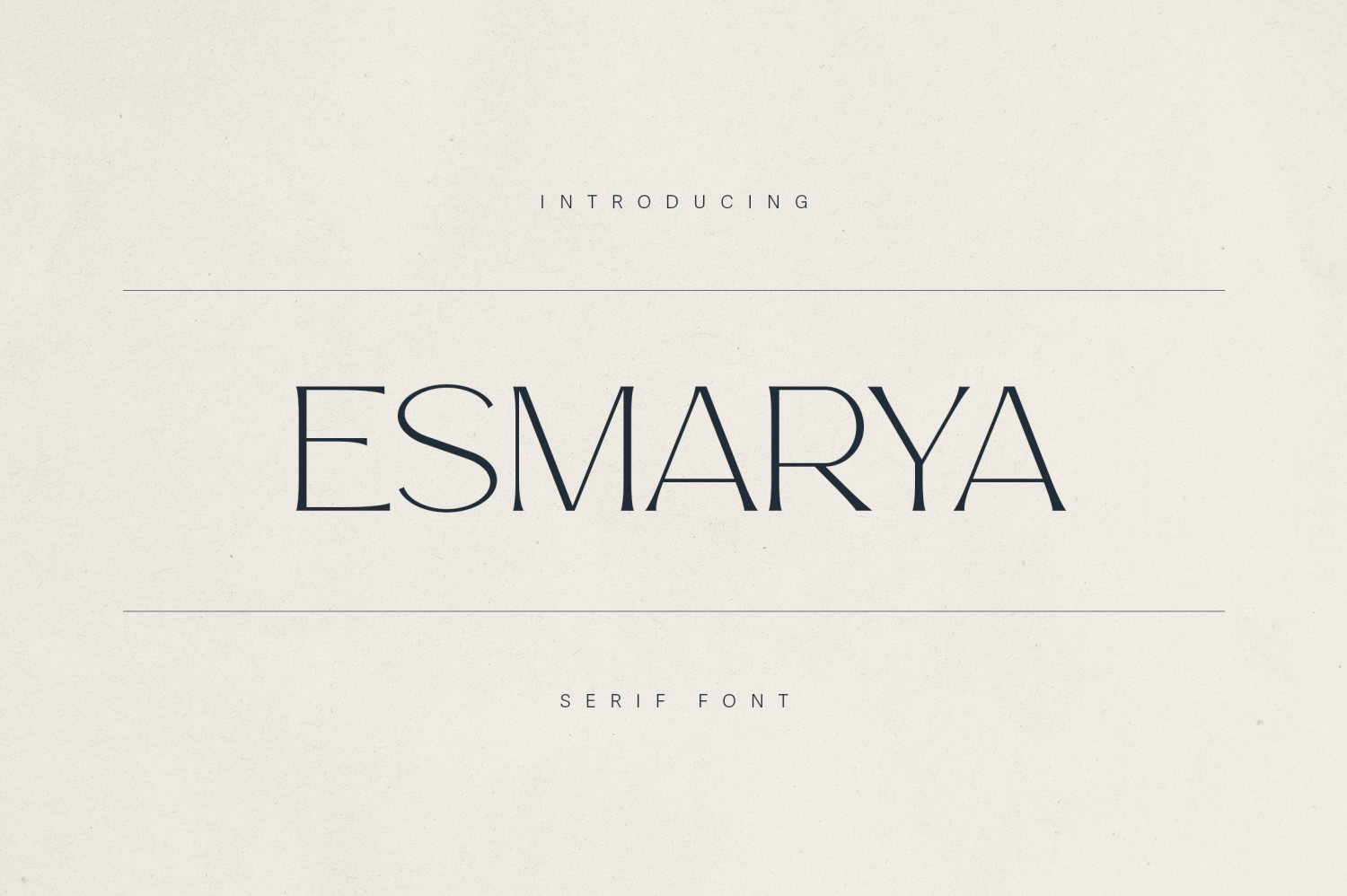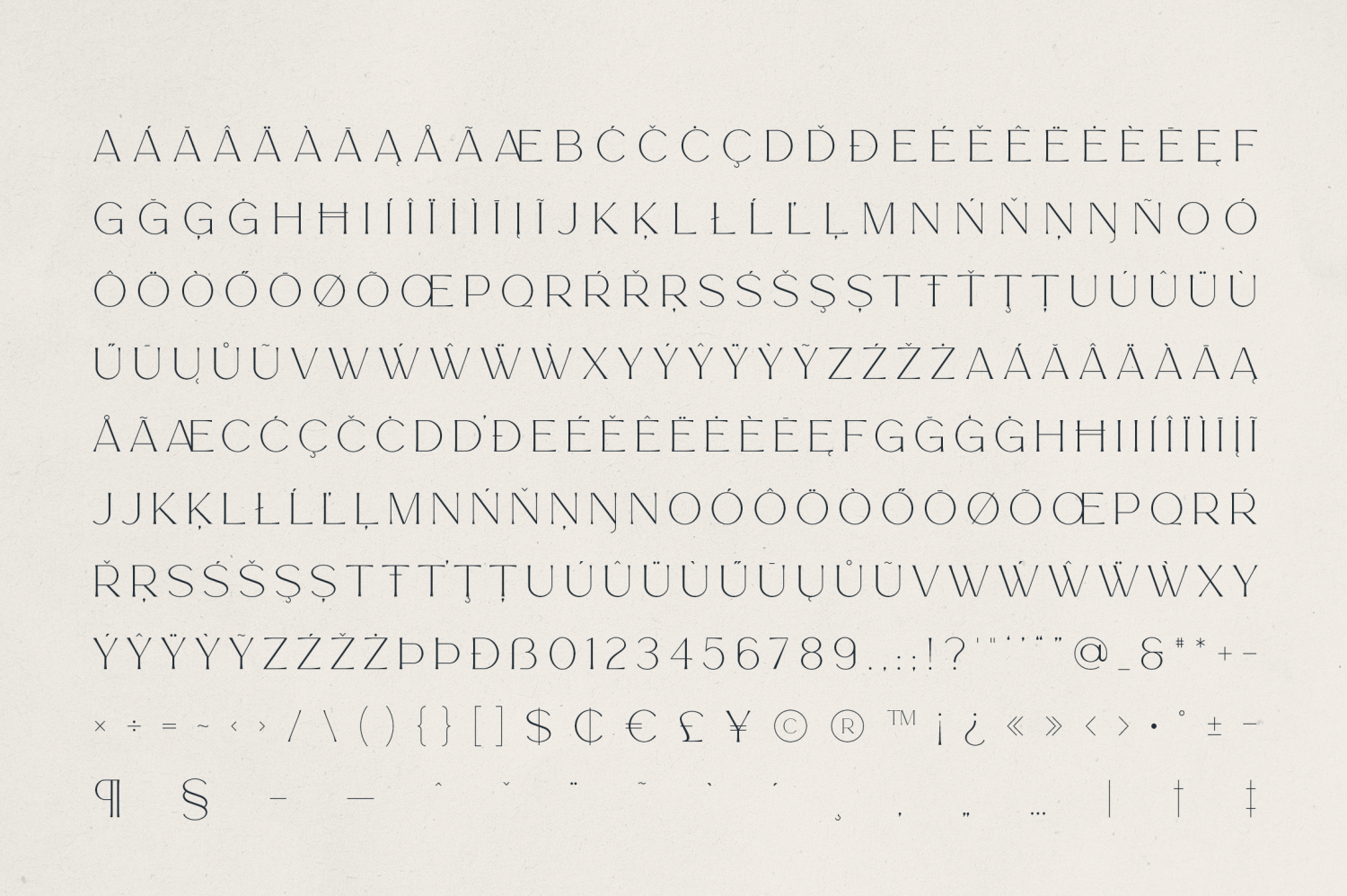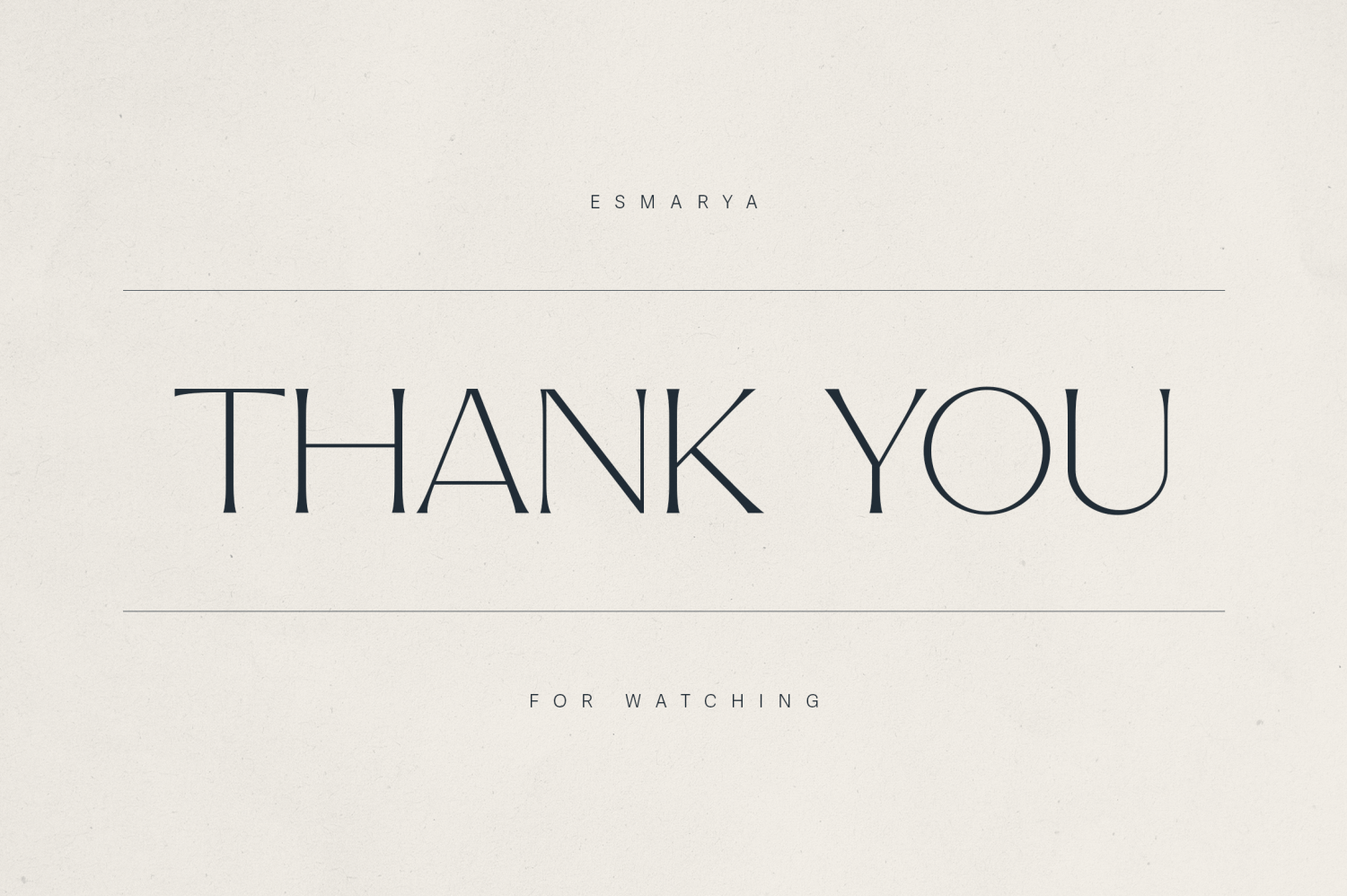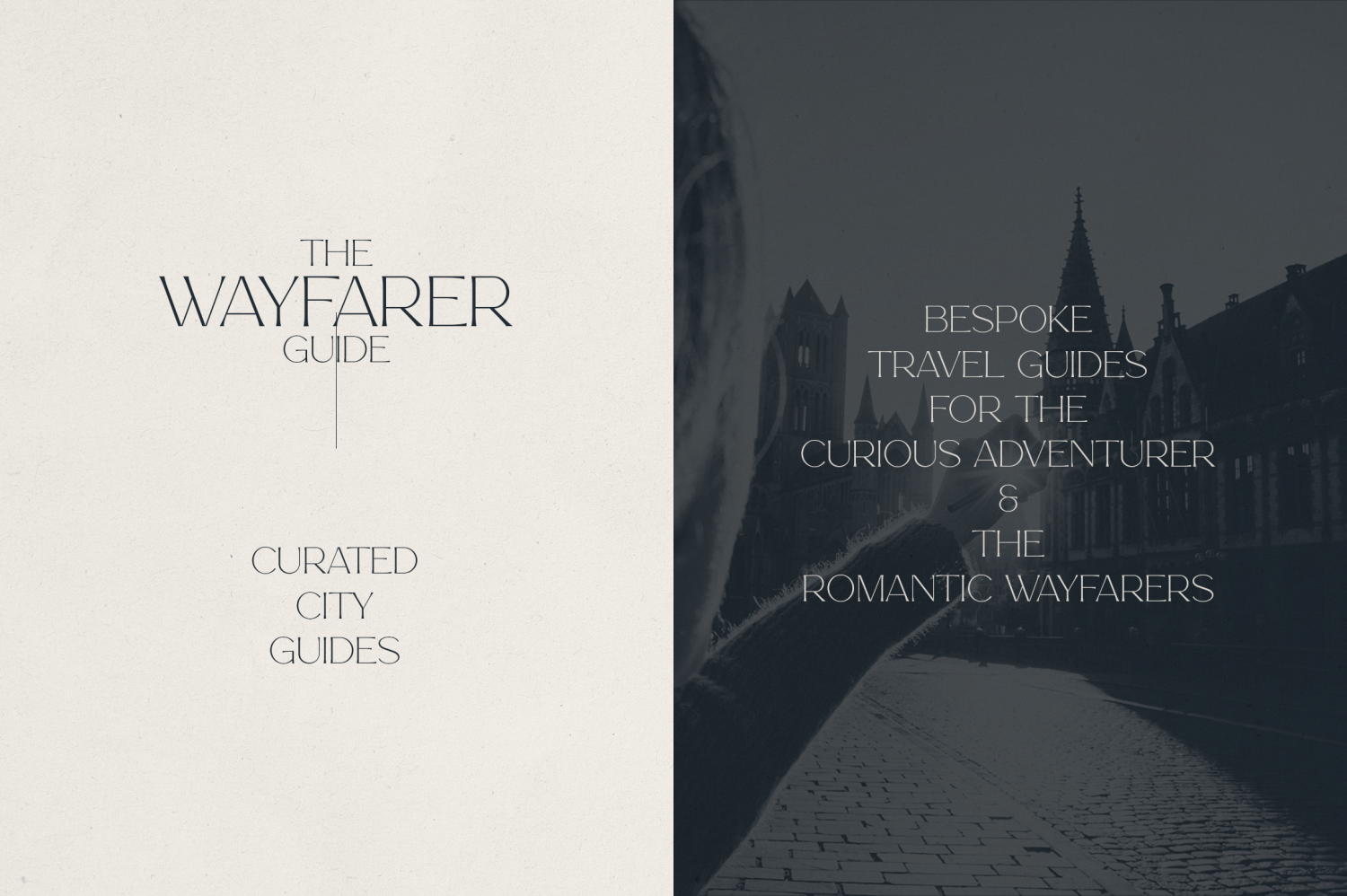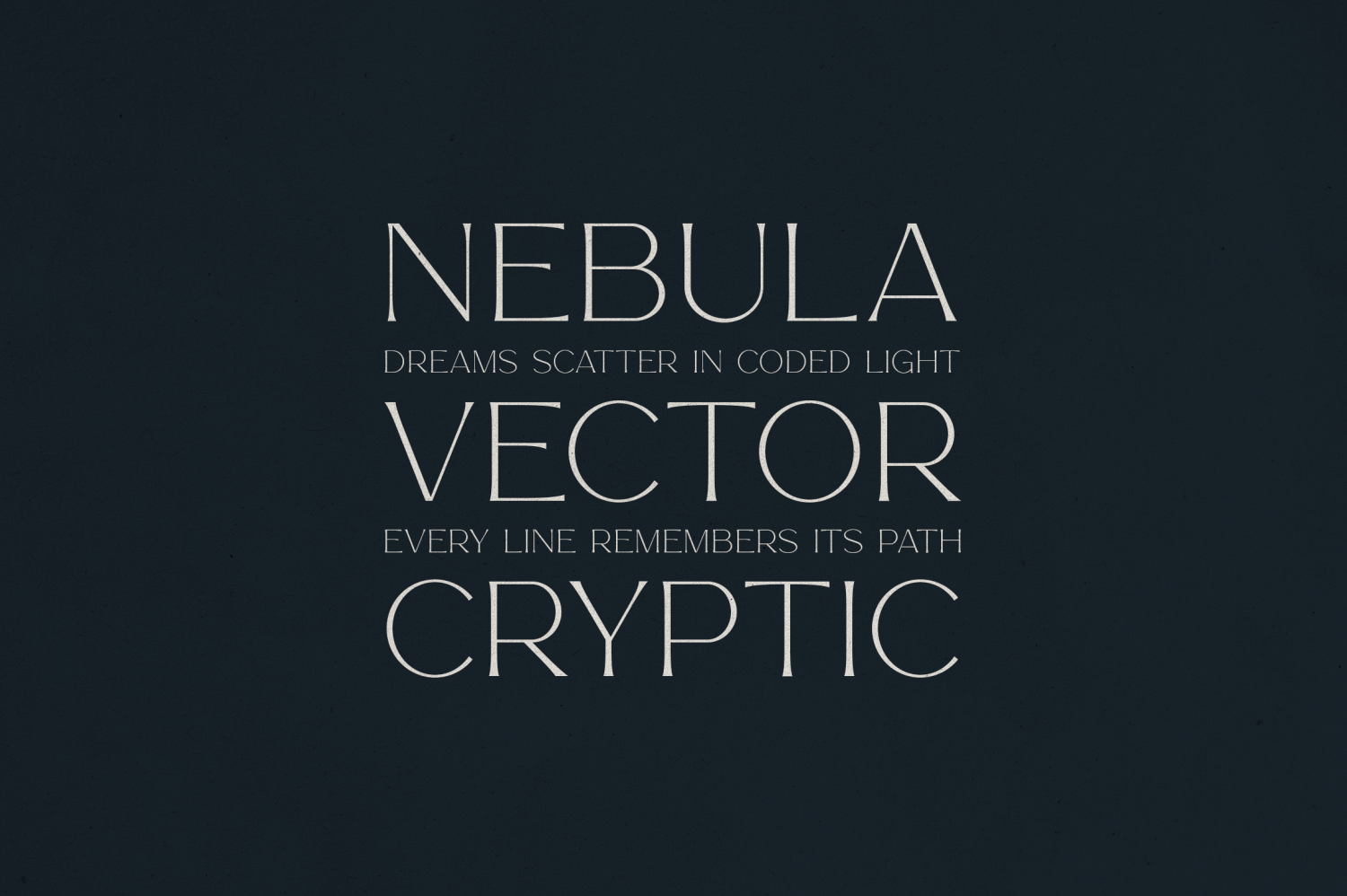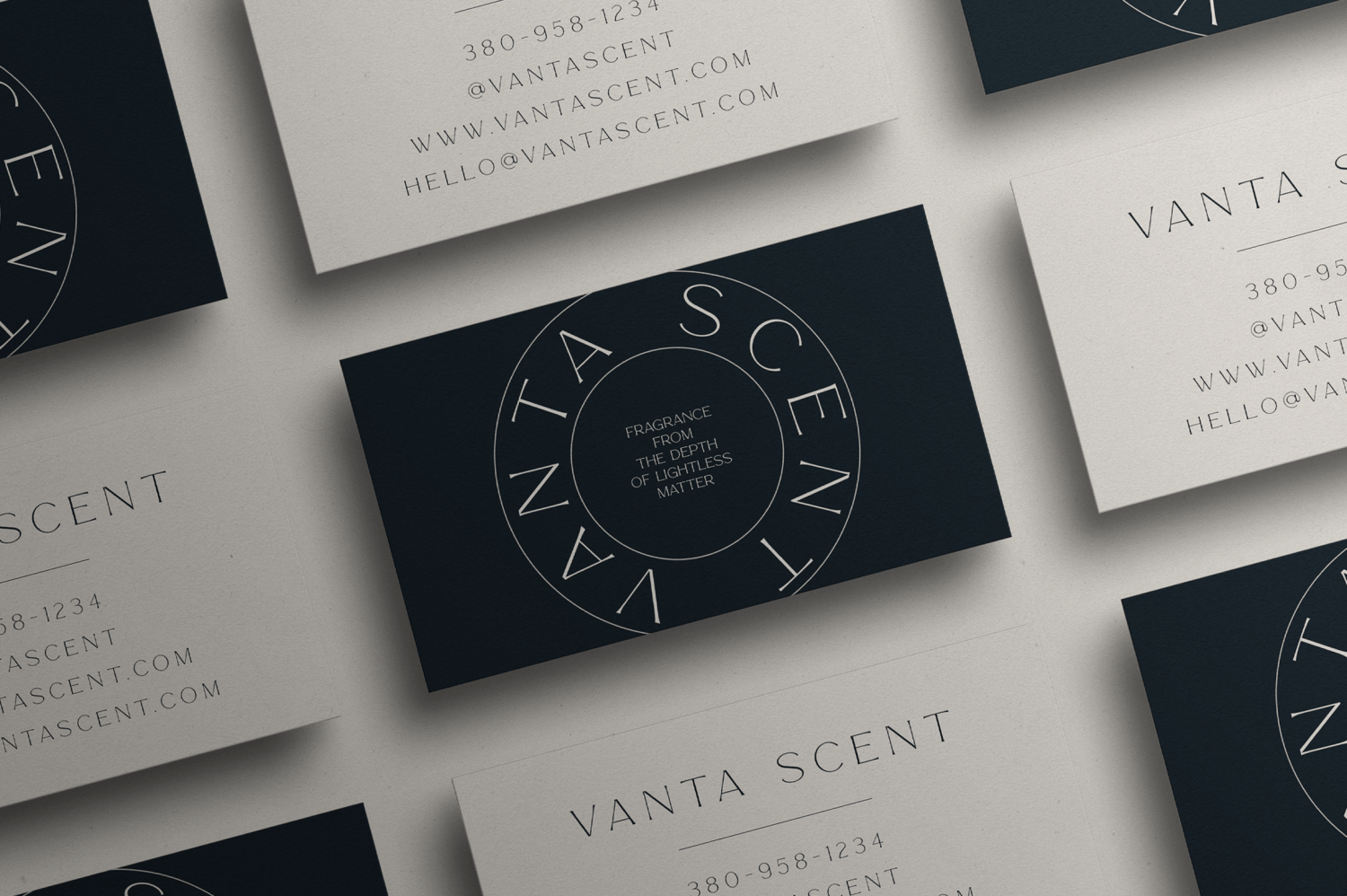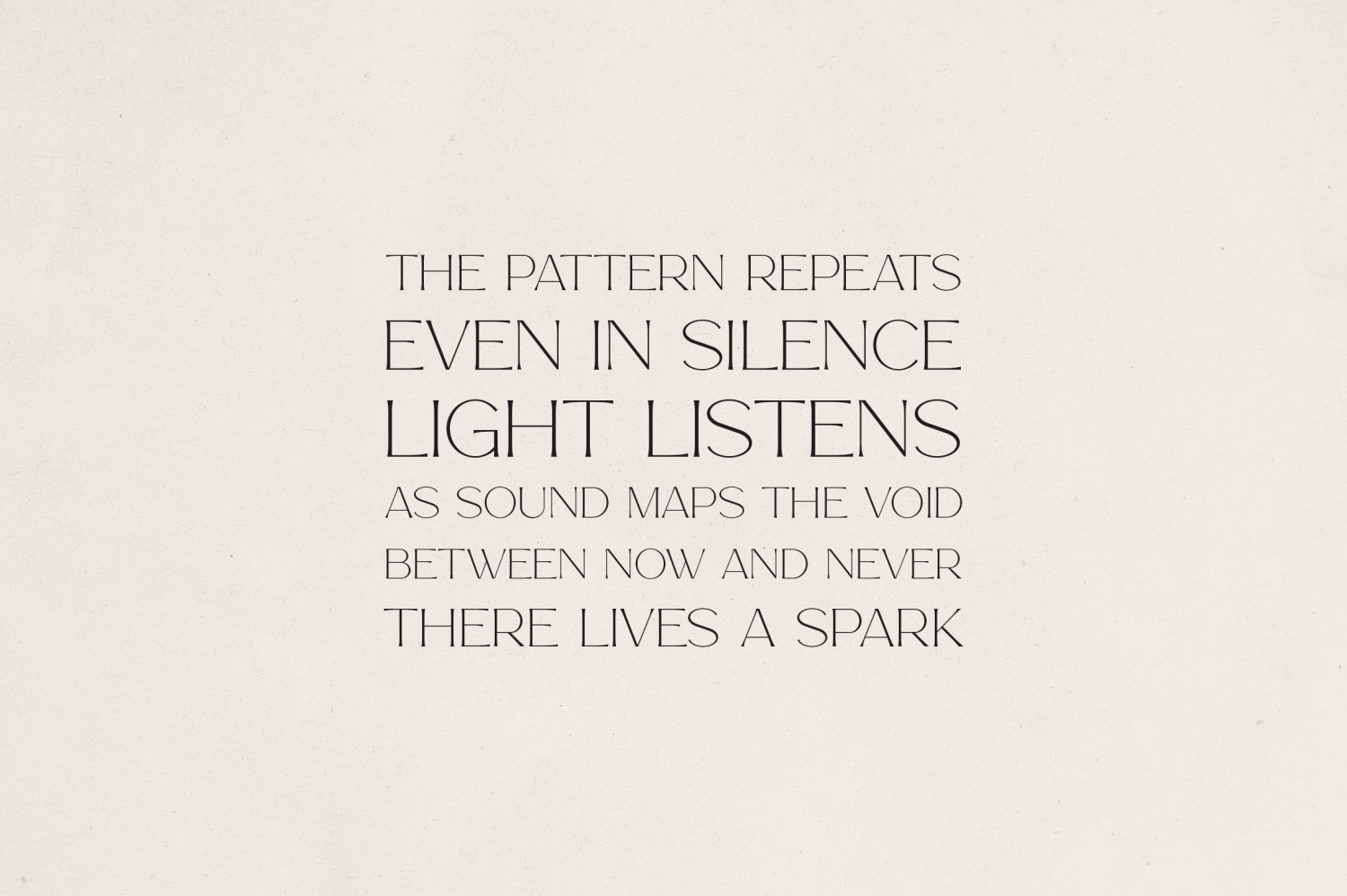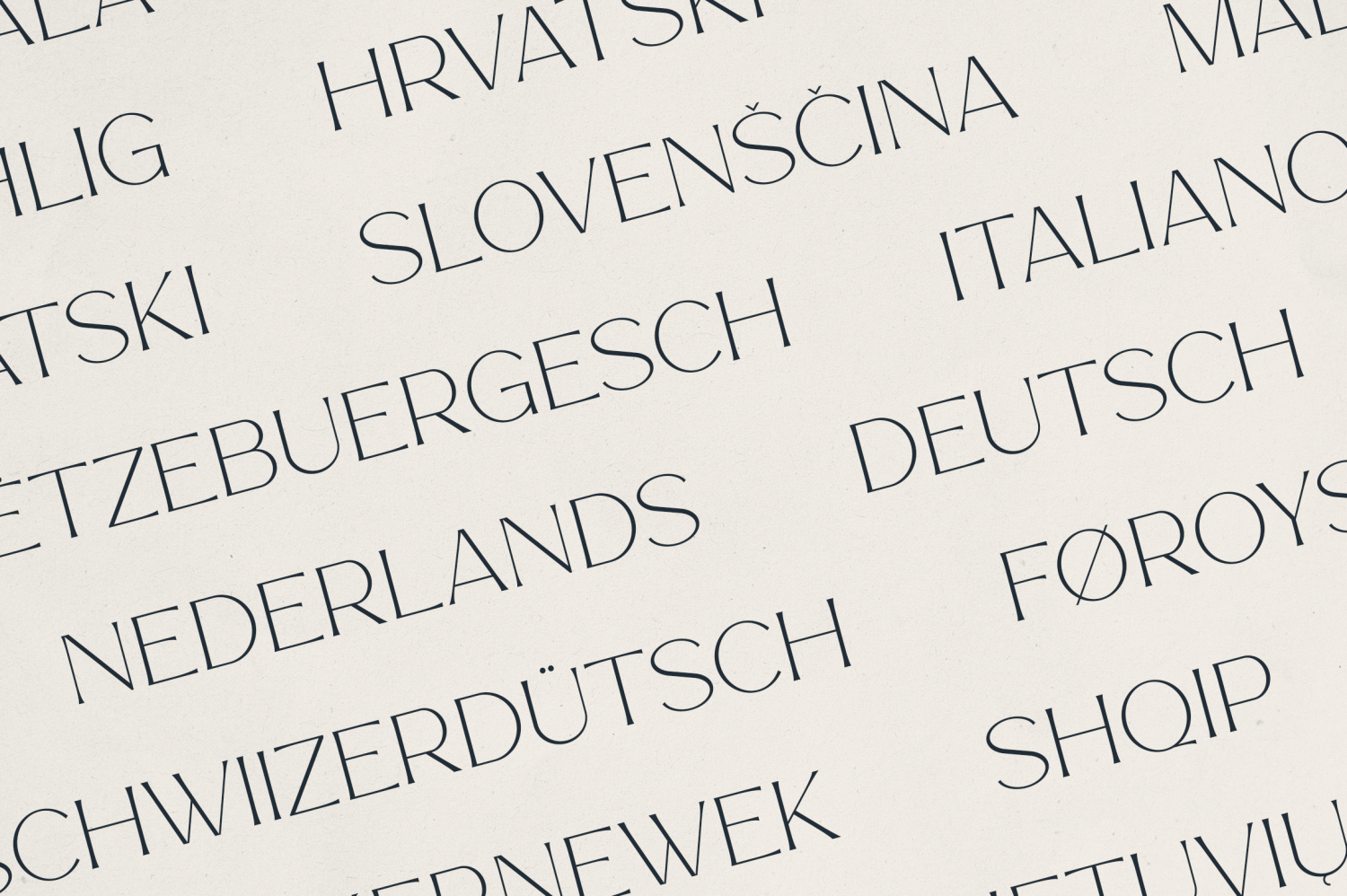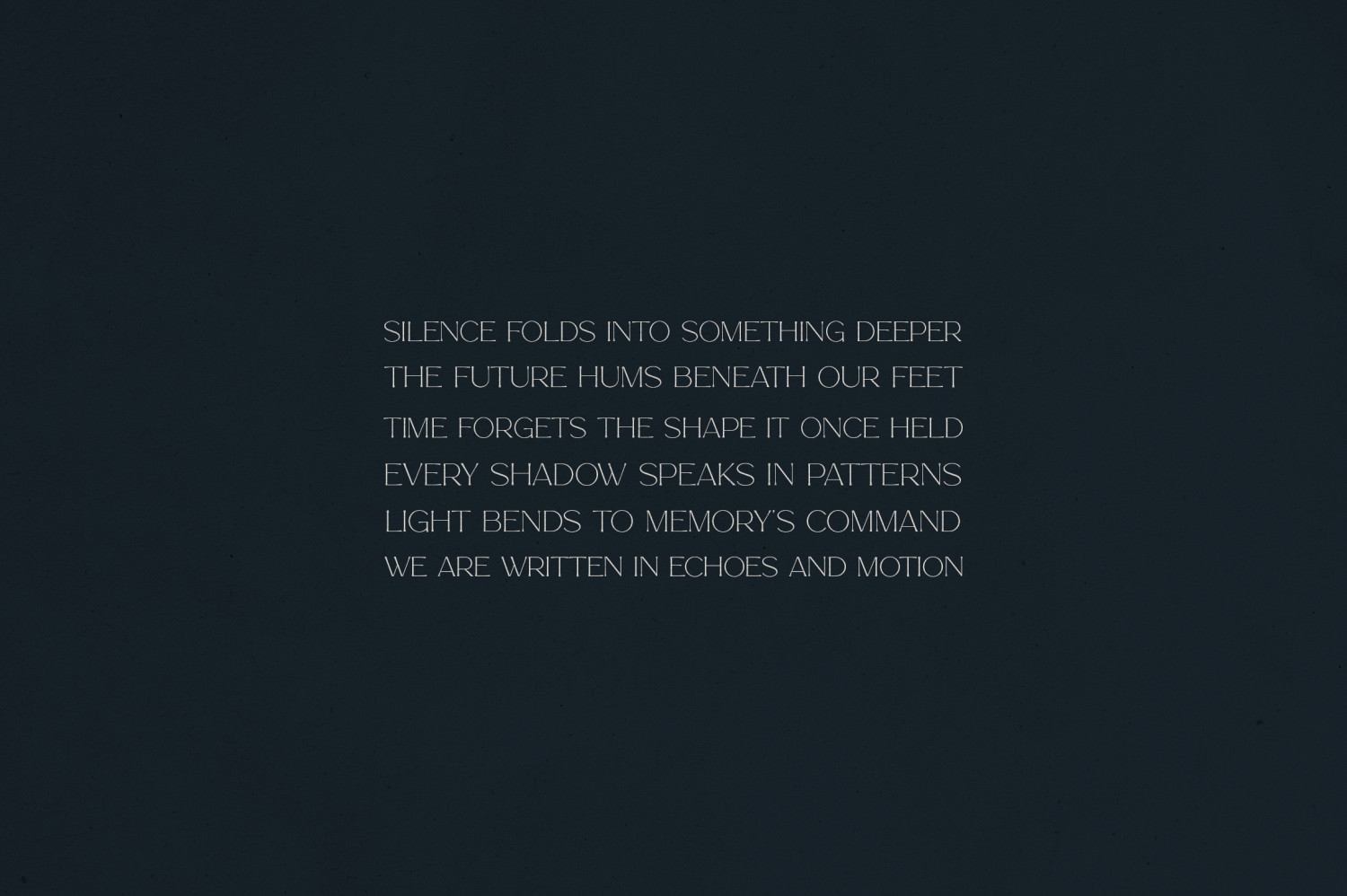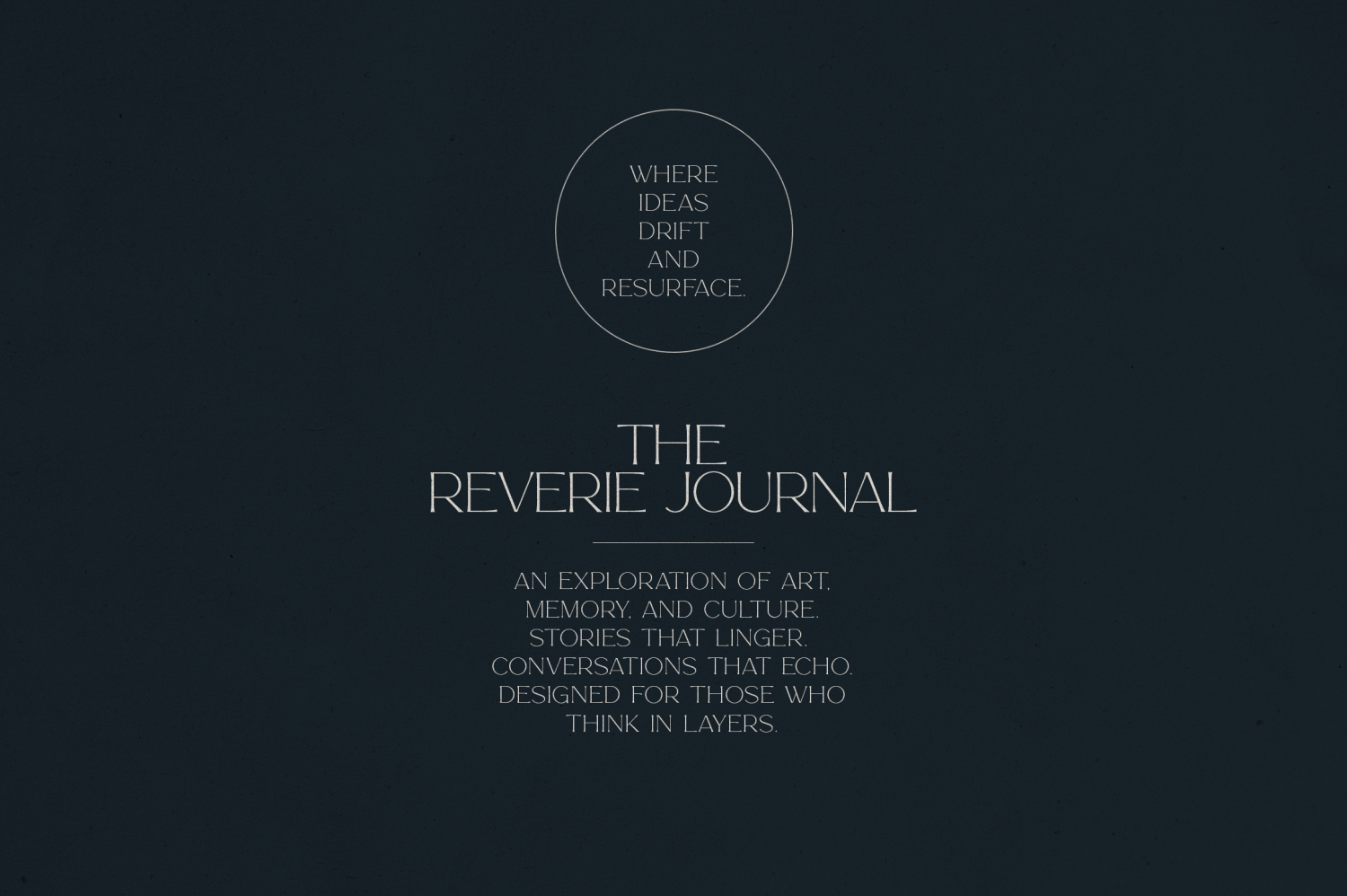
Esmarya
Meet Esmarya — A Modern Serif
Esmarya is a refined serif typeface crafted for designers who value both expression and clarity. With high contrast strokes, graceful curves, and minimalist construction, Esmarya bridges editorial sophistication with modern branding needs.
Perfect for:
• Editorial layouts
• High-end branding
• Beauty and fashion packaging
• Lifestyle magazines
• Luxury logos
• Travel and culture storytelling
Whether you’re typesetting a romantic quote or designing a bold monogram, Esmarya delivers presence without shouting. Its elongated serifs and subtle letterforms give every word a sense of motion, space, and intention.